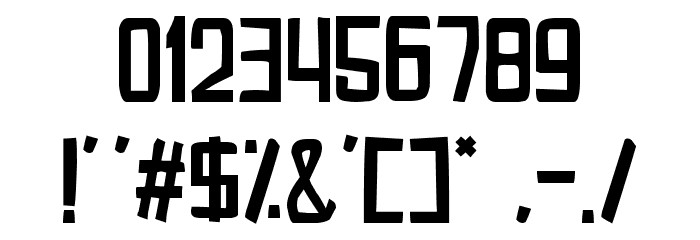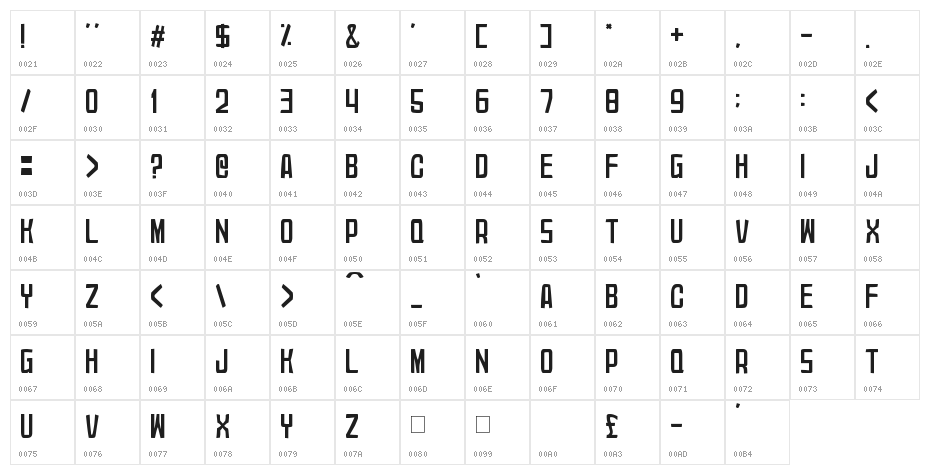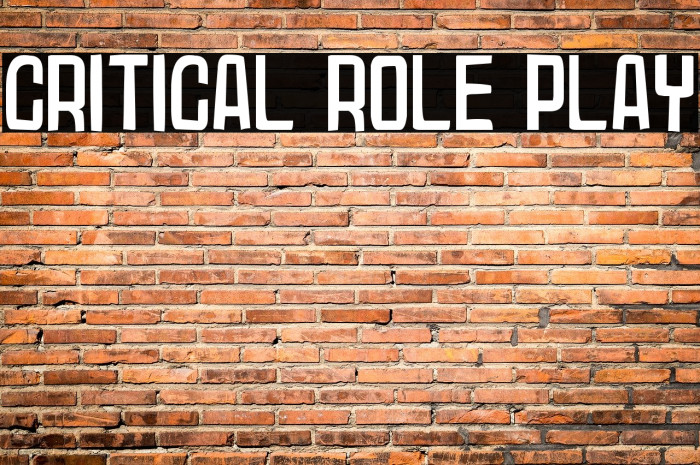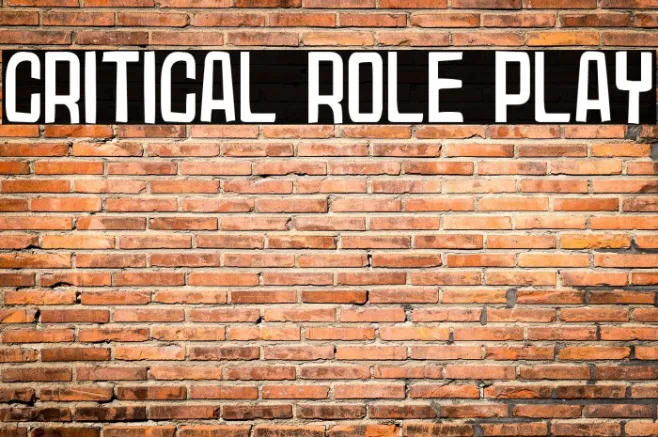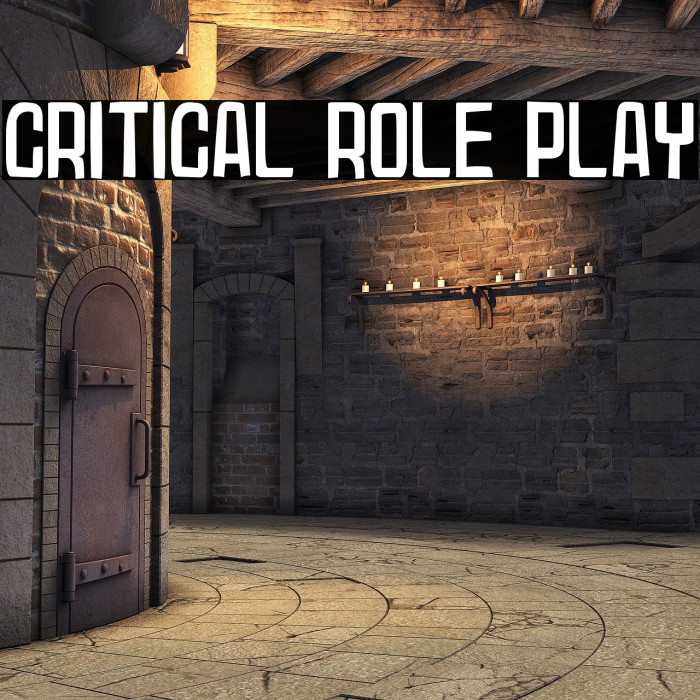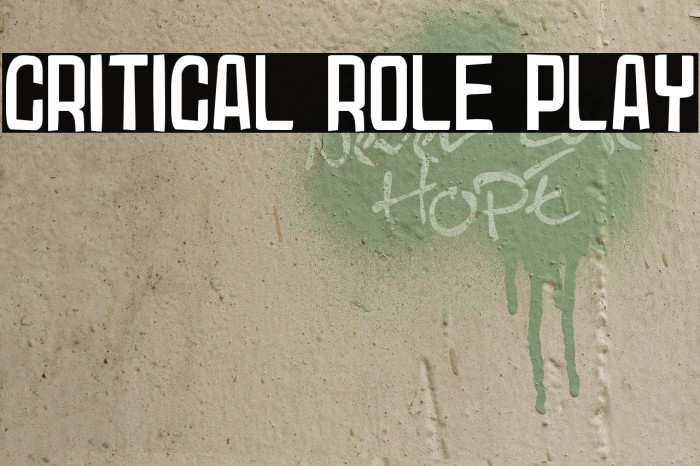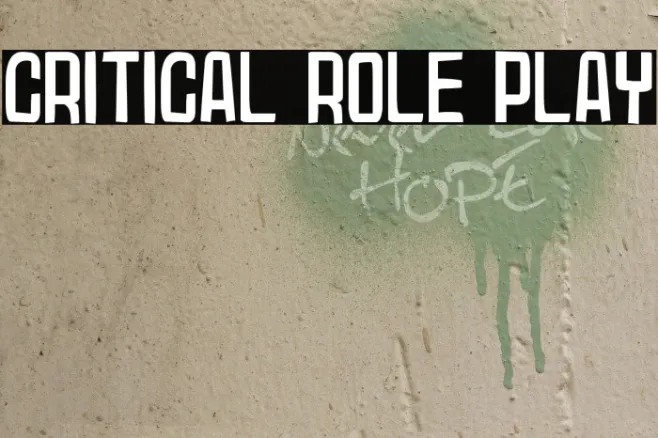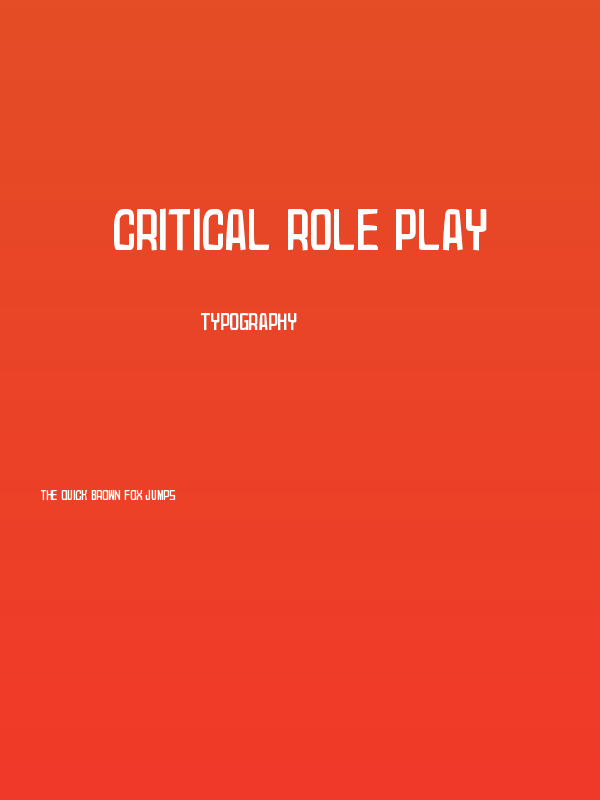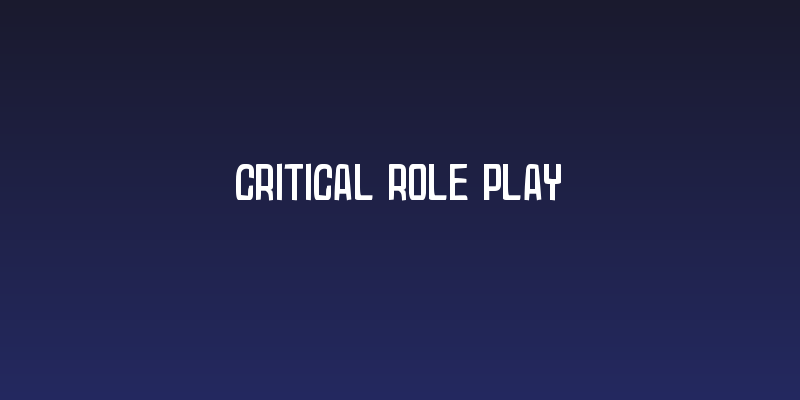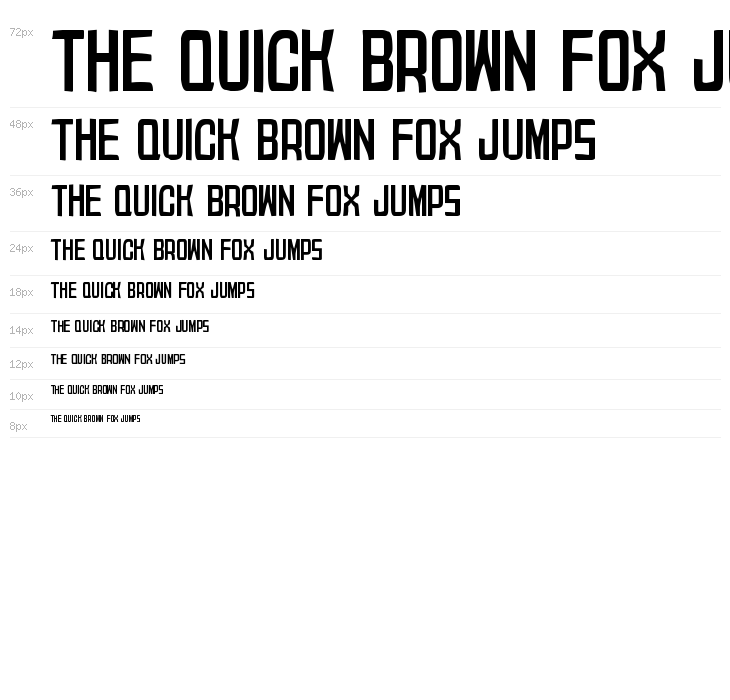
Critical Role Play Font
Critical Role Play Description
This font features a bold and assertive style with a distinct geometric structure. The uppercase letters are tall and slightly condensed, giving a strong and impactful appearance. The lowercase letters maintain a consistent height, complementing the uppercase with a uniform look. The numerals are clear and legible, matching the overall boldness of the alphabet. Special characters are designed with the same geometric precision, ensuring they fit seamlessly with the rest of the character set. The font's design is modern and versatile, suitable for a variety of applications where a strong visual presence is required.